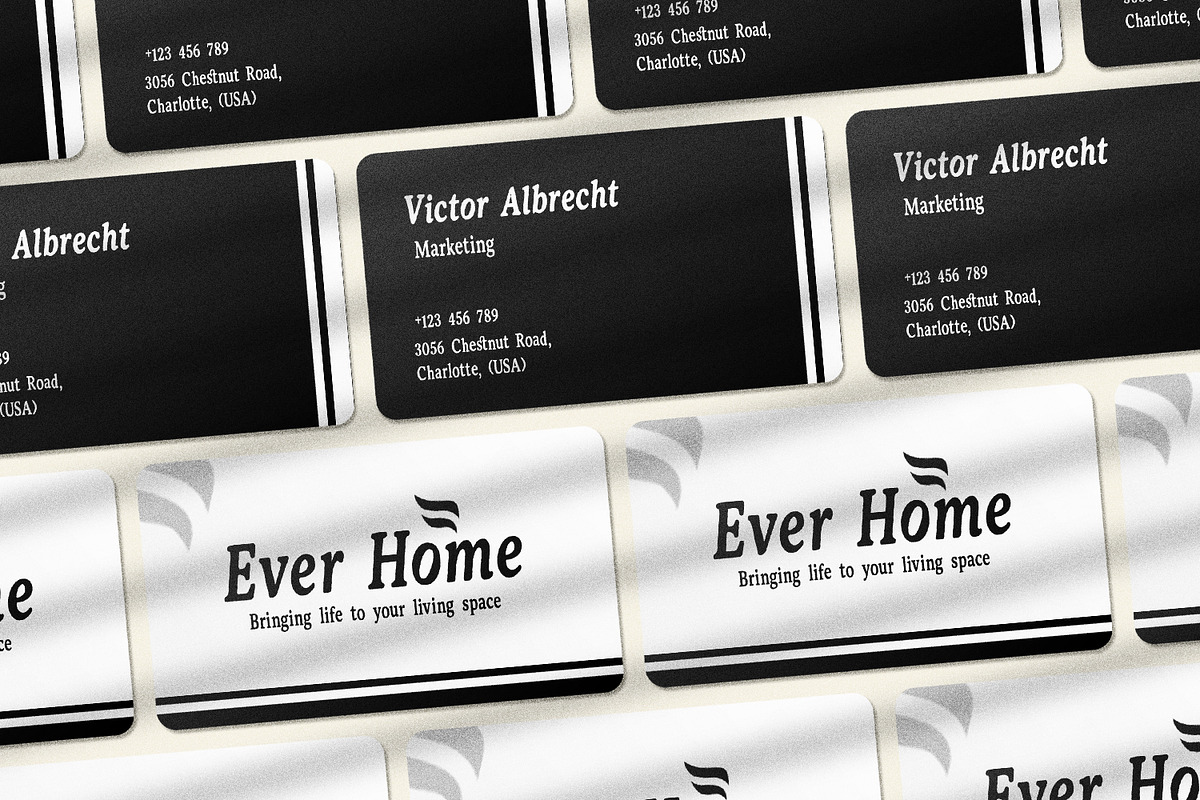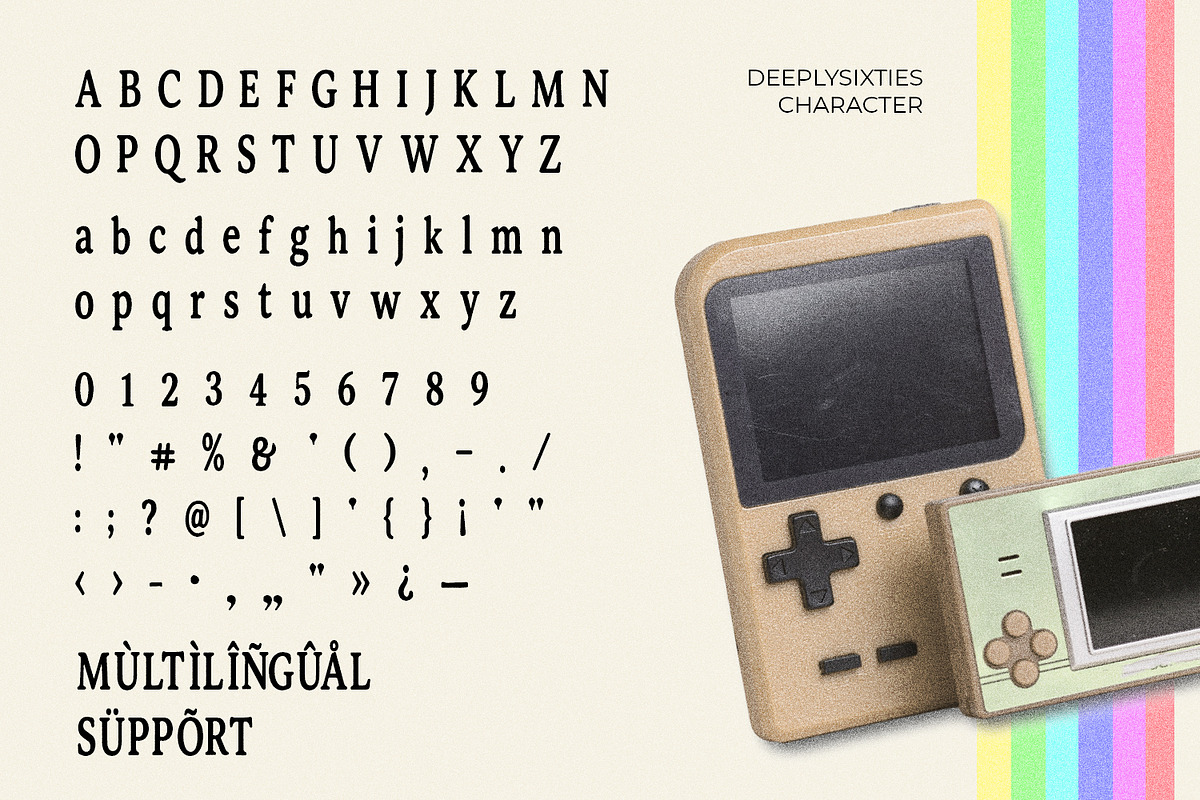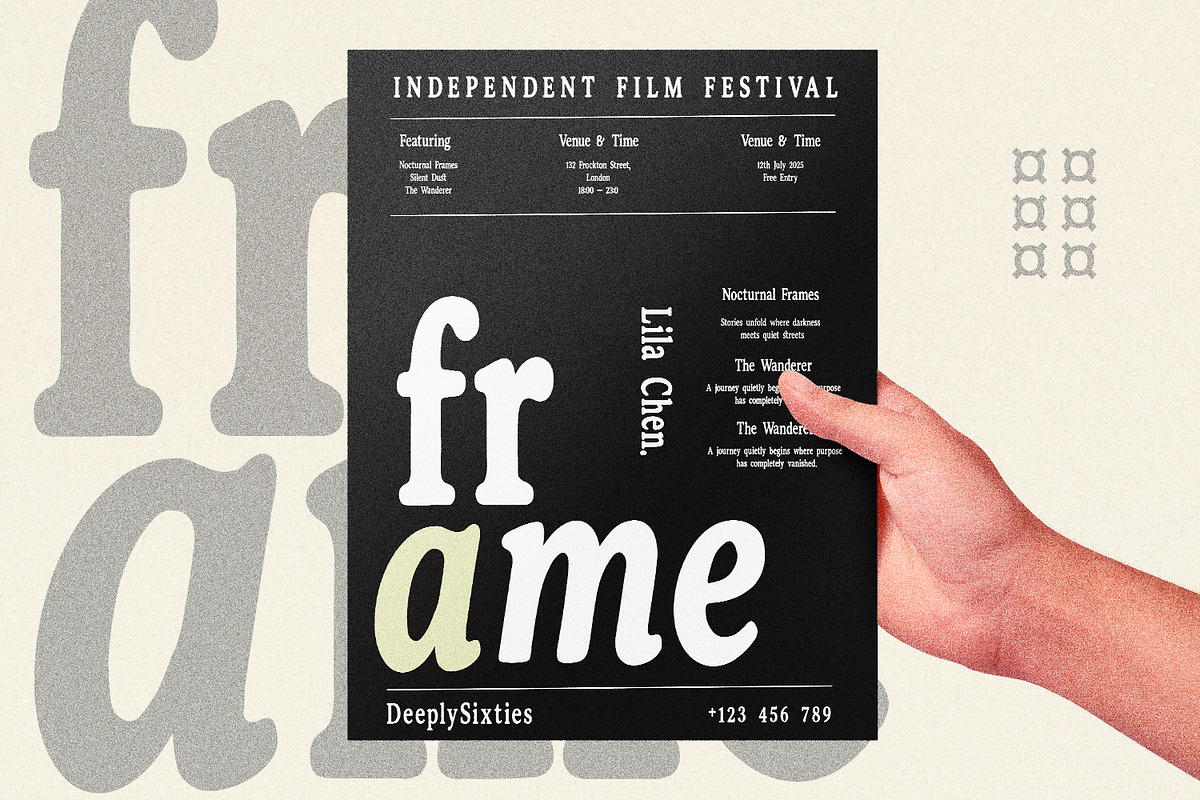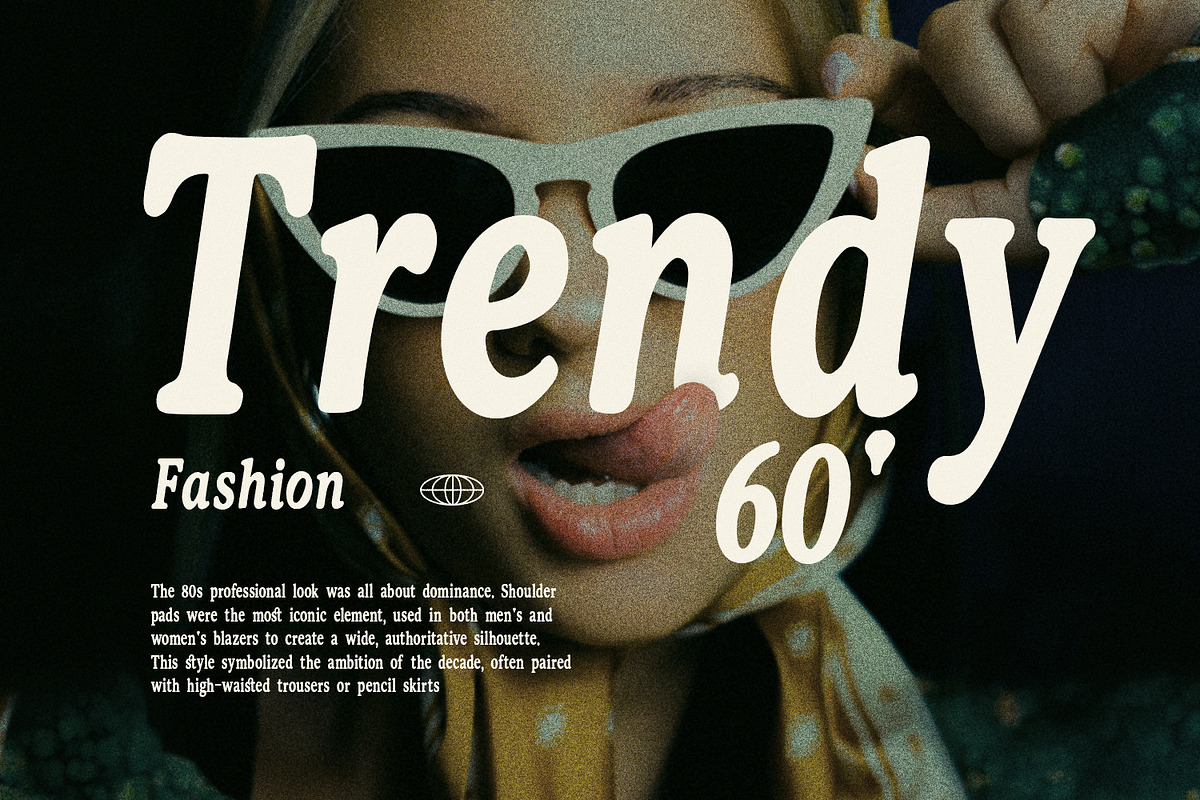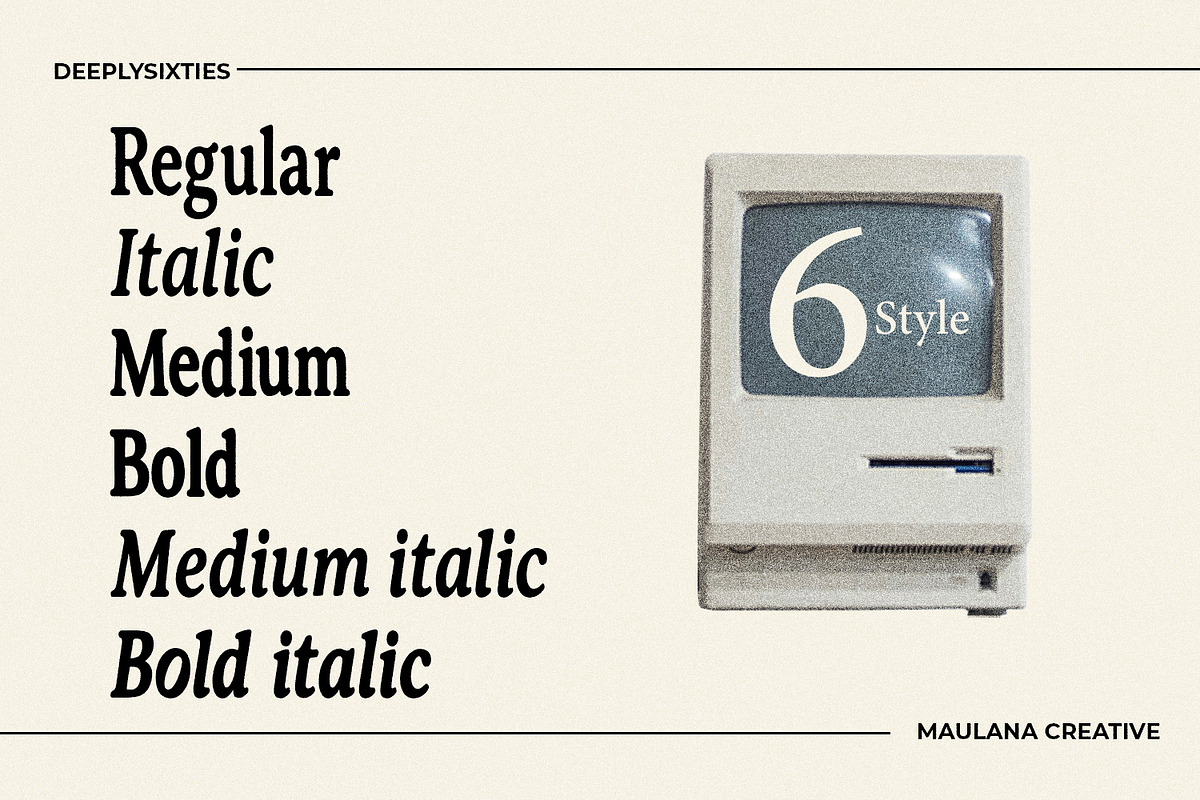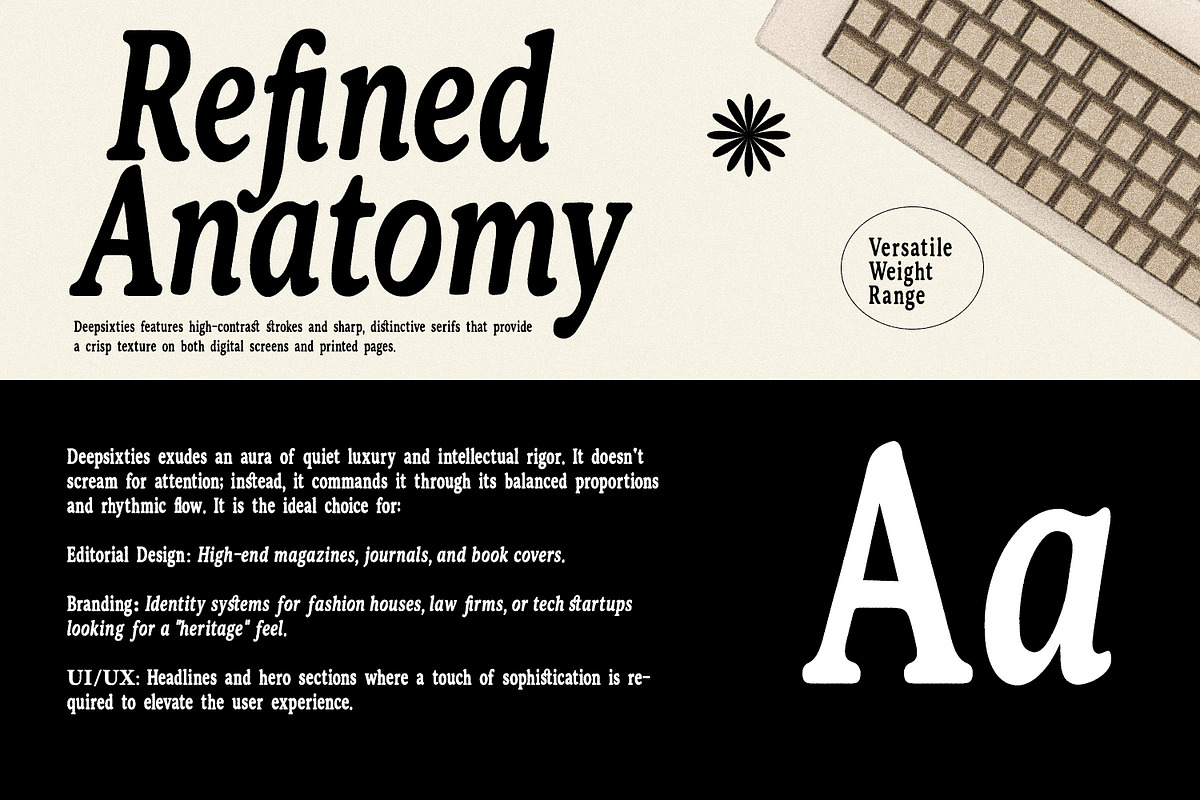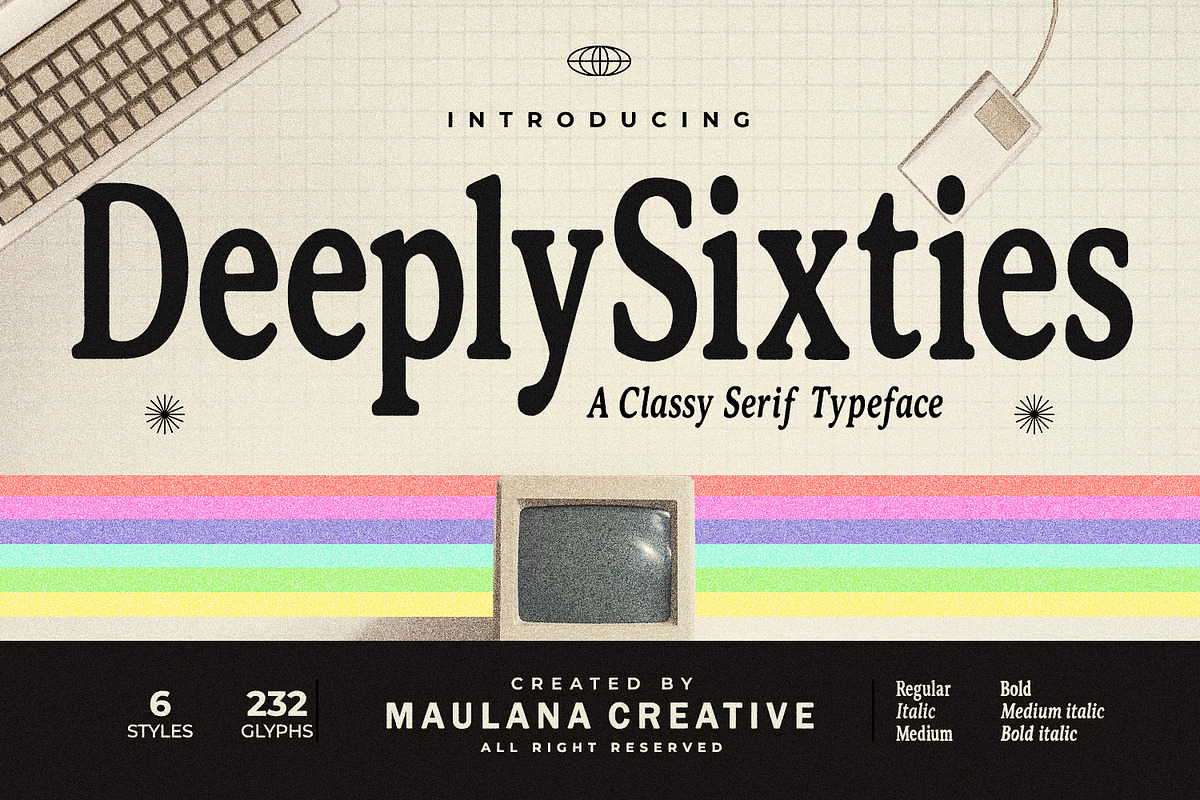
DeeplySixties Retro Serif Family
DeeplySixties is an elegant serif typeface inspired by the classic aesthetic of the 1960s. Featuring high-contrast strokes and sharp, distinctive serifs, this font provides a crisp texture on both digital screens and physical pages. It exudes an aura of quiet luxury, balanced proportions, and rhythmic flow, making it command attention naturally.
With 6 versatile styles ranging from Regular to Bold Italic, DeeplySixties is an ideal choice for editorial designs, high-end magazines, journals, book covers, and sophisticated brand identity systems. It is also perfect for digital interfaces, headers, and hero sections where a touch of timeless heritage and intellectual rigor is required to elevate the overall design experience.
Six Full character set (Uppercase & Lowercase)
Numbers, Punctuation, and Symbols